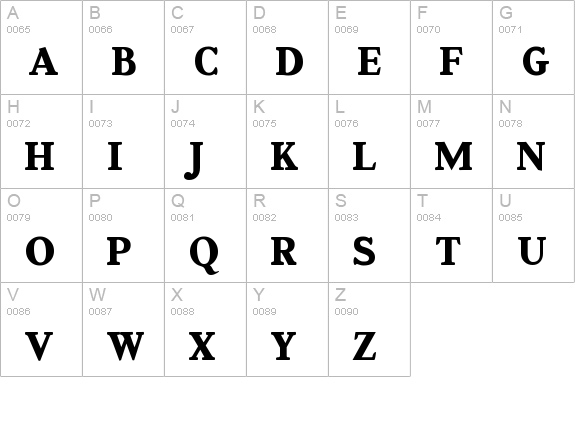
AabcedXBold Font Details
Introducing AabcedXBold, a bold and dynamic font that is designed to make a bold statement in any design project. This font exudes confidence and strength, with its sharp and modern letterforms that demand attention. With its unique combination of sharp angles and curves, AabcedXBold adds a touch of elegance and sophistication to any typographic composition. But what sets AabcedXBold apart is not just its stunning aesthetics, but also its versatility. This font is perfect for a wide range of design applications, from branding and logo design to headlines and social media graphics. Its bold and commanding presence ensures that your message will be delivered with impact and clarity. And the best part? AabcedXBold is available for free download at FontsMarket.com. Yes, you read that right - this incredible font can be yours, absolutely free of charge. FontsMarket.com is the go-to destination for designers and creatives looking for high-quality fonts that don't break the bank. With AabcedXBold, you can elevate your designs without spending a dime. So why wait? Download AabcedXBold today and unlock the potential of this impressive font. Whether you're a professional designer or a casual enthusiast, AabcedXBold will become an invaluable addition to your font library. So go ahead, unleash your creativity and make a statement with AabcedXBold - the bold font that is freely available at FontsMarket.com.